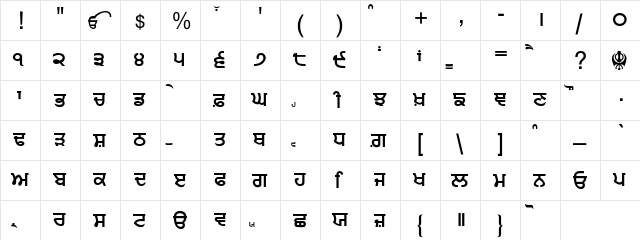
Punjabi Sans Regular
Design Context for Punjabi Sans Typeface
Punjabi Sans takes a measured approach to typography — its balanced proportions and neutral character make it a reliable workhorse for both digital and print work.